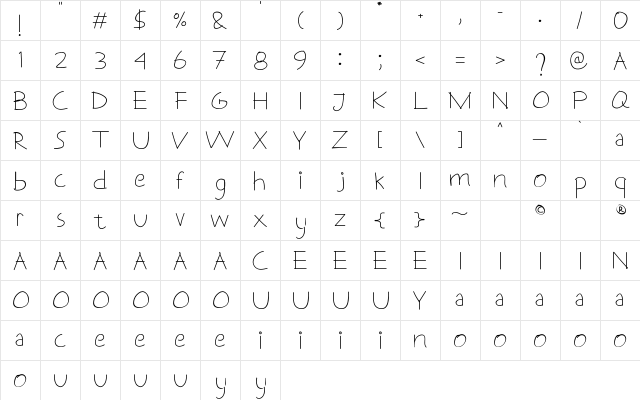
Tulehu Regular
| Foundry | LetterCraft Studio. |
| Designer | Bagus Aji W. |
Design Context for Tulehu Typeface
Tulehu is a composed and adaptable typeface that performs quietly and consistently across a wide range of design contexts.